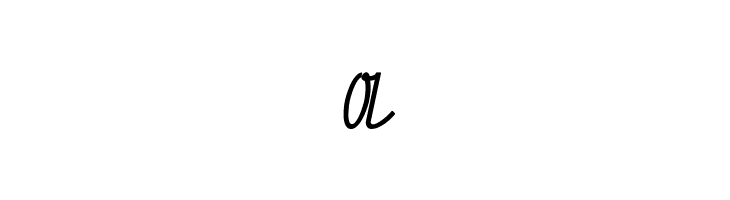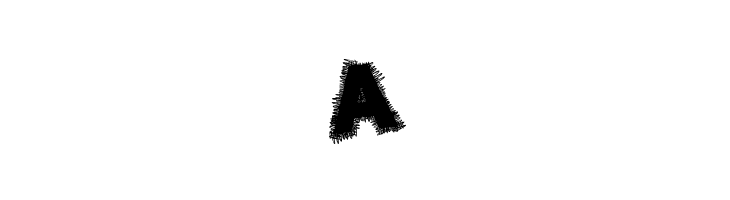
• Neovix
( Erion Dyrmishi - cool-fonts-for-logos.blogspot.com )
• Neovix Basic
• Neovix Basic Bold
• Neris Black
A bold, modern font with clean lines and rounded edges for a friendly, professional look.
• Neris Black Italic
A bold, italic font with a dynamic and modern style.
• Neris Bold Italic
A modern, bold, and italicized font with a sleek and dynamic appearance.
• Neris Light
A modern, geometric sans-serif font with clean lines and balanced spacing.
• Neris Light Italic
A sleek, modern italic font with a light and airy feel.
• Neris SemiBold
A modern, semi-bold sans-serif font with clean lines and rounded edges.
• Neris SemiBold Italic
A modern, italicized font with a sleek and dynamic design.
• Neris Thin
A modern, thin, and geometric typeface with clean lines and excellent readability.
• Neris Thin Italic
A sleek, modern thin italic font with elegant strokes and excellent readability.
• Nerko One Regular
( Nermin Kahrimanovic - www.behance.net/nermink )
A playful, bold font with rounded edges and a hand-drawn feel.
• Neroli
• NeueRudelskopf
An intricate and decorative font with elongated, curved strokes and artistic flair.
• NeueRudelskopf
A decorative font with intricate curves and playful elegance.
• NeueRudelskopf-Bold
A bold, decorative font with intricate loops and curves, perfect for artistic projects.